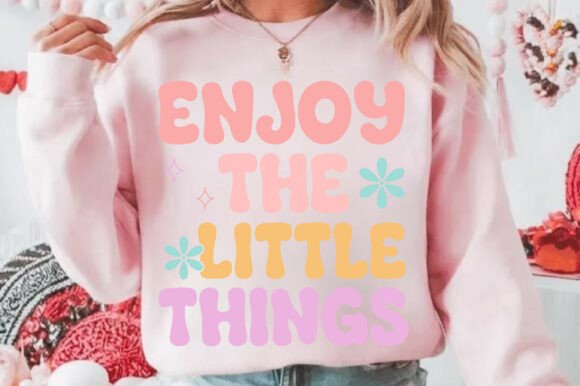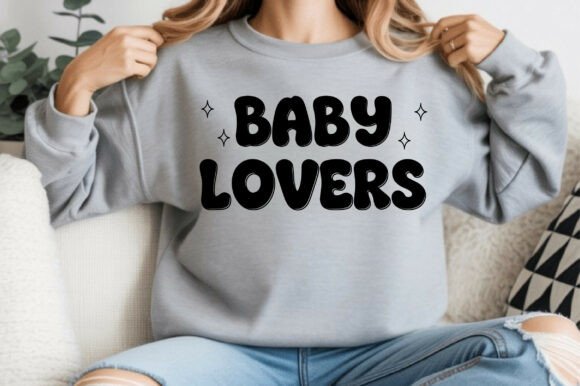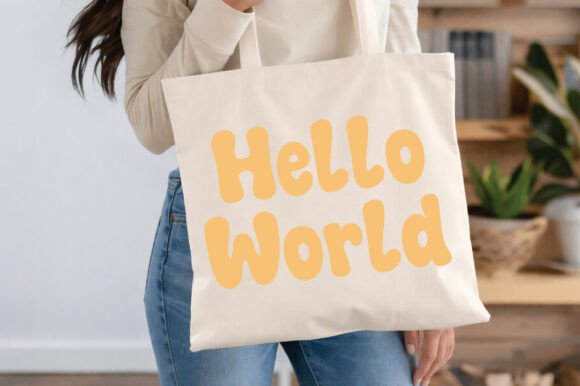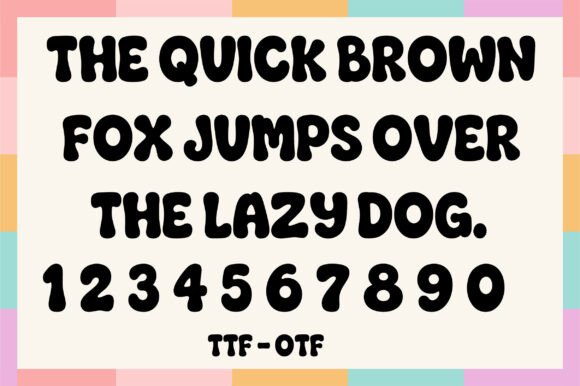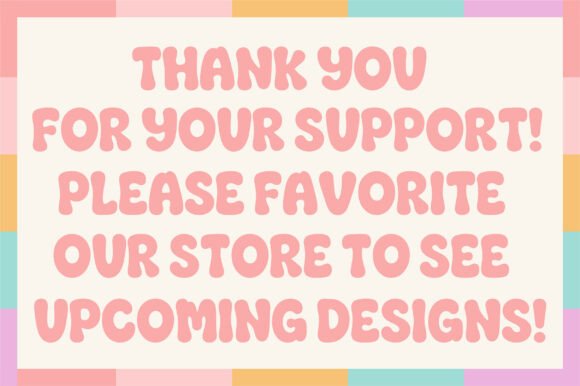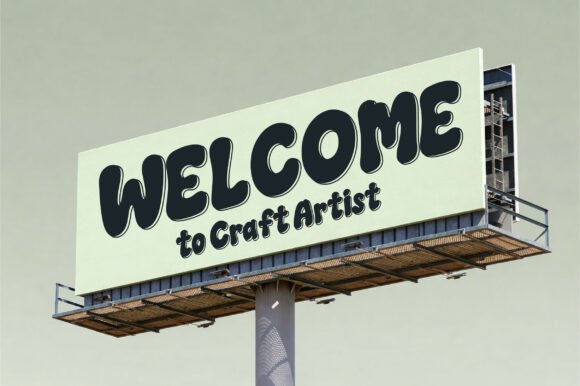
Introduction to Puffy Chunk Font
Do you remember the thrill of discovering a new font that sparks creativity and sets your imagination free? For designers, finding that perfect font can be a game-changer. It’s like stumbling upon a hidden treasure that elevates your work to the next level. That’s exactly what happens when you come across the Puffy Chunk Font.
With its bold and groovy display style, Puffy Chunk Font is a design dream come true. Its soft, rounded shapes and playful personality make it an ideal choice for kids’ designs, cartoons, posters, packaging, and creative branding projects. Whether you’re working on a high-quality design project or need a free download for a quick fix, Puffy Chunk Font is a valuable resource that can add a touch of magic to your work.
One of the best things about Puffy Chunk Font is its versatility. You can use it with a transparent background or combine it with other design elements to create a unique visual effect. Its high-quality design makes it a must-have for any designer looking to take their creative project to the next level.
Key Features of Puffy Chunk Font
- High-quality design for creative projects: Puffy Chunk Font is perfect for adding a playful touch to your designs, from posters to digital art.
- Unique characteristics: The font’s chunky, puffy design makes it stand out from other fonts, adding a fun and quirky touch to your creative projects.
Honest Review: Puffy Chunk Font
I recently had the chance to work with the Puffy Chunk Font on a creative project, and I must say it’s a fantastic design resource. The font is a high-quality addition to any digital project, and the free download is a great perk.
What works well is the font’s versatility. It can be used for a variety of purposes, from titles and headings to body text, and it looks great on a transparent background. The Puffy Chunk Font is perfect for designers who want to add a playful touch to their work without sacrificing readability.
- ✨ Easy to read, even at small font sizes
However, there are some limitations to consider. The font may not be suitable for very formal or professional projects, as it has a more casual, playful feel.
Overall, I’m very impressed with the Puffy Chunk Font. It’s a great addition to any designer’s toolkit, and I would definitely recommend it to colleagues and friends.
Tips for Getting the Most Out of the Puffy Chunk Font
For best results, use the Puffy Chunk Font on a transparent background to create a clean and modern look. You can also experiment with different font sizes and colors to create a unique design style.
The Puffy Chunk Font is perfect for creating high-quality designs for a variety of creative projects, including branding materials, social media graphics, and digital products. Its unique and playful style makes it a great choice for businesses and individuals looking to add a touch of personality to their designs.